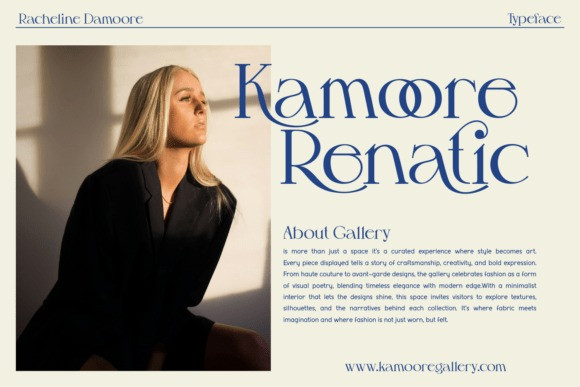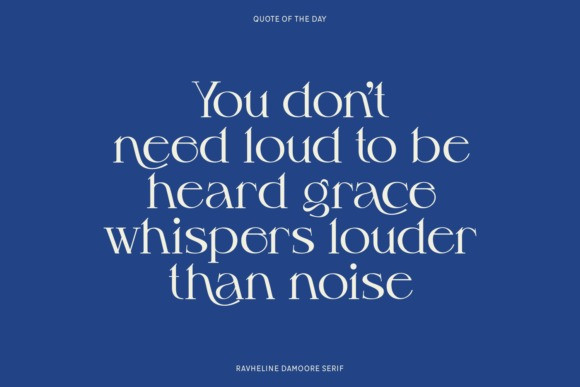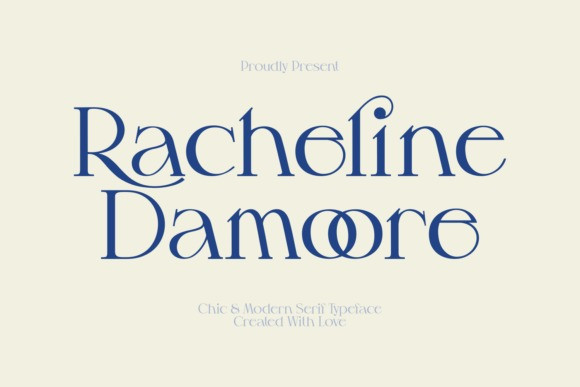
Racheline Damoore Font
Racheline Damoore Font, a chic and modern serif typeface. The typeface is distinguished by its highly decorative and unique ligatures, which connect the letters in an elegant and artistic way, making it ideal for sophisticated branding and design projects.